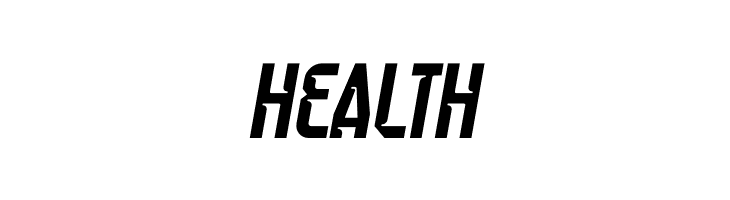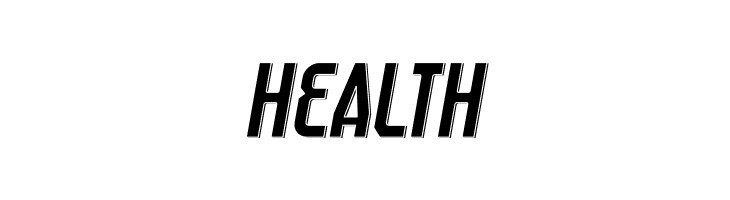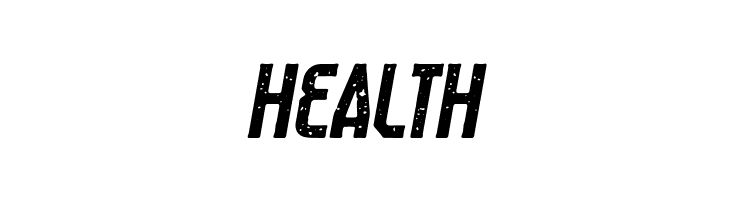
A bold, italicized font with a distressed, vintage texture.
A bold, angular italic font with a modern and dynamic style.
A bold, geometric font with sharp angles and a modern, impactful style.
A bold, italic font with angular, geometric characters and a modern aesthetic.
A bold, geometric font with high contrast and angular shapes, perfect for modern designs.
A bold, geometric font with an industrial and futuristic design.
A bold, geometric, italic font with a double-line effect and a modern, tech-inspired style.
A bold, italicized font with a three-dimensional outline effect.
A bold, decorative font with a three-dimensional outline effect.
A bold, geometric font with angular lines and a modern, blocky appearance.